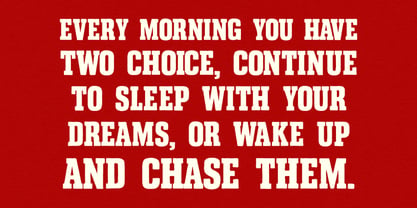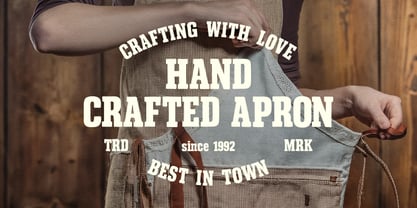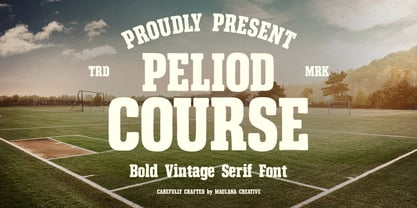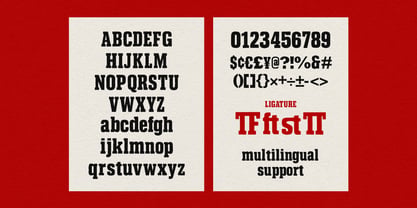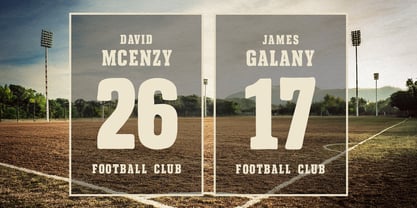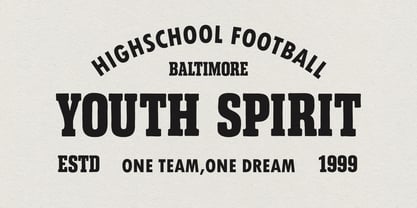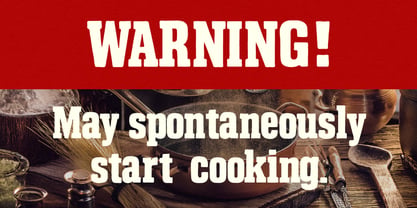
MC Peliod Course
par Maulana Creative
La famille de polices MC Peliod Course a été conçue par Gilang Maulana et publiée par Maulana Creative. MC Peliod Course contient 1 styles. En savoir plus sur cette famille
Peliod Course is a powerful and commanding display serif font that captures the essence of classic collegiate and vintage athletic aesthetics. Featuring a bold weight, distinctive slab style serifs, and a touch of hand crafted texture, this typeface evokes a sense of nostalgia and timeless strength. It is perfectly suited for sports branding, vintage designs, artisanal logos, and impactful headlines. Whether you are designing for a local football club or a rustic handcrafted brand, Peliod Course provides a sturdy and authentic look that stands out with confidence.
Concepteurs: Gilang Maulana
Fonderie: Maulana Creative